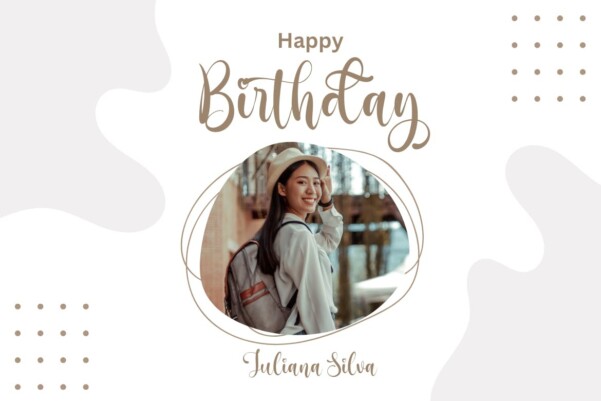
Father Script Font
Father Script Font is a stylish script font suitable for your design project needs, such as; Wedding themes, Valentine’s themes, Father’s day themes design, social media posts, quotes, overlays on images, tagline logos, posters, print needs, website banners, and more.